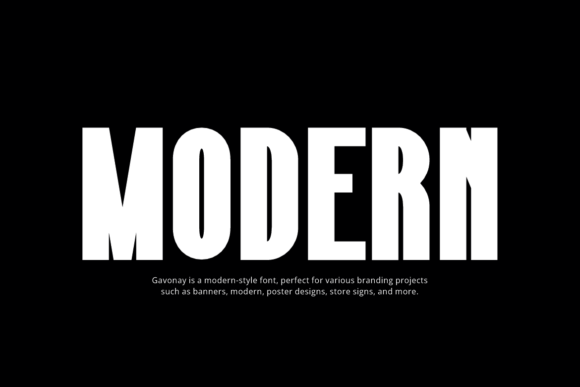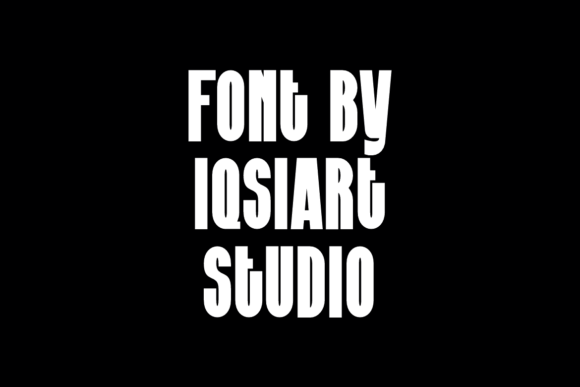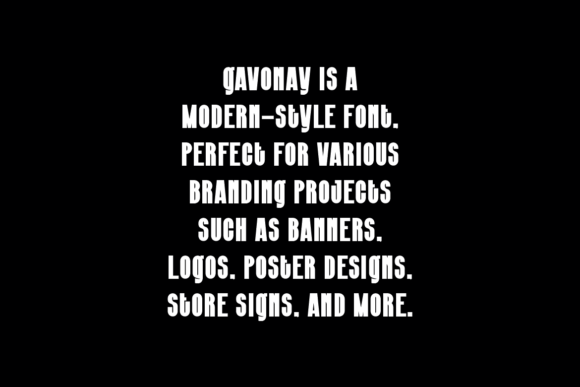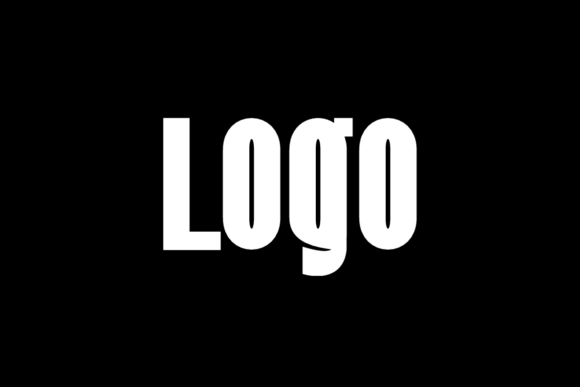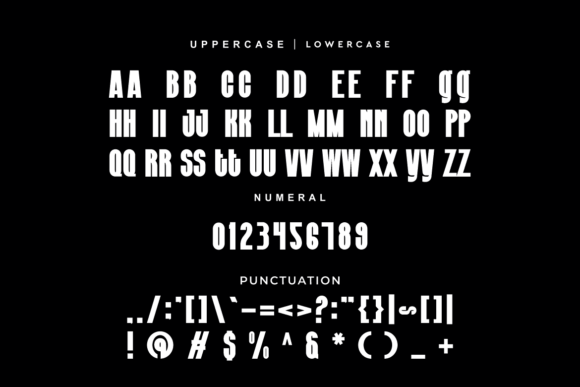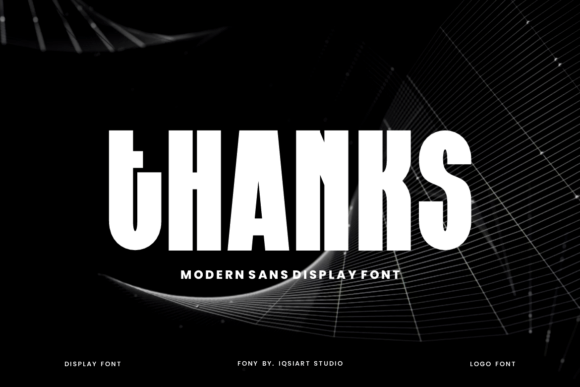
Introduction to Gavonay Font
Do you remember that moment when a single font changed the entire direction of your creative project? For designers, finding the perfect font can be a game-changer. Whether you’re working on a logo, brochure, or social media graphics, the right font can elevate your design and leave a lasting impression on your audience.
That’s where Gavonay Font comes in – a bold and authentic display typeface that’s designed to make a statement. With its versatility and high quality, Gavonay Font is the perfect design resource for any creative project. From free download to commercial use, this font is available in a range of styles to suit your needs. Whether you’re looking for a font with a transparent background or a bold, eye-catching design, Gavonay Font has got you covered.
As a valuable addition to any designer’s toolkit, Gavonay Font offers a unique blend of style and functionality that’s sure to take your designs to the next level.
Key Features of Gavonay Font
- High-quality, professional font designed for creative projects and designs.
- Features a transparent background, making it ideal for designs that require a clean and minimalist look.
- Designed as a versatile design resource, suitable for a wide range of creative applications, including logos, branding, and typography.
- Includes a comprehensive set of characters, including uppercase and lowercase letters, numbers, and punctuation marks.
- Unique characteristics include its modern and sleek design, making it perfect for contemporary creative projects.
Honest Review: Gavonay Font
As a designer, I’m always on the lookout for high-quality design resources to elevate my creative projects. Recently, I stumbled upon the Gavonay Font, and I’m excited to share my honest review.
What works well: ✨ The Gavonay Font is a beautiful, modern sans-serif font that’s perfect for digital designs. It’s available for free download, making it an excellent addition to any design resource library. The font features a transparent background, which allows it to blend seamlessly with any background image or color. The high-quality design is evident in the font’s clean lines and precise typography.
What doesn’t: ⚠️ While the Gavonay Font is excellent for digital designs, it may not be the best choice for print materials. The font’s design is optimized for screen resolution, and it may not translate well to print media. Additionally, the font’s weight and style may not be suitable for all design projects.
Overall impression: I’m impressed with the Gavonay Font’s design and functionality. It’s a valuable addition to any designer’s toolkit, and I appreciate that it’s available for free download. However, designers should be aware of its limitations and consider their project’s specific needs before using it.
- Perfect for digital designs
- Transparent background for seamless blending
- High-quality design with clean lines and precise typography
The Gavonay Font is perfect for a variety of creative projects, including logos, brochures, business cards, and social media graphics. Its high-quality design and transparent background make it a versatile design resource.